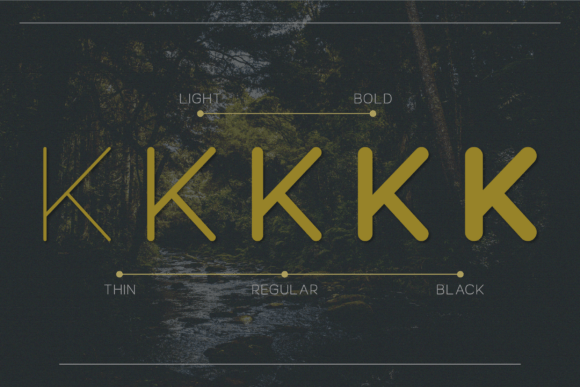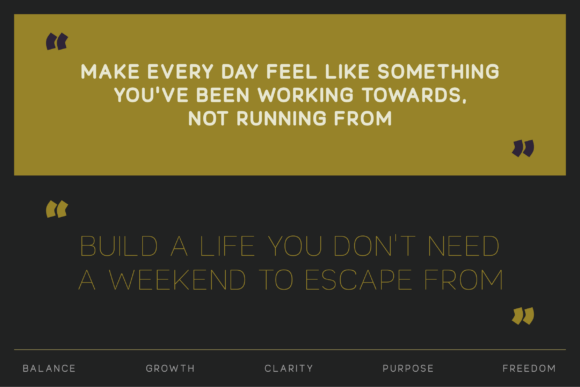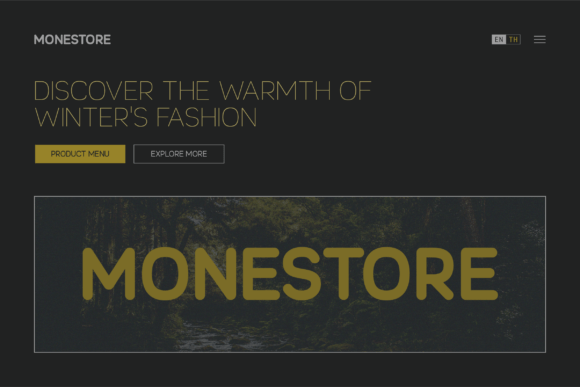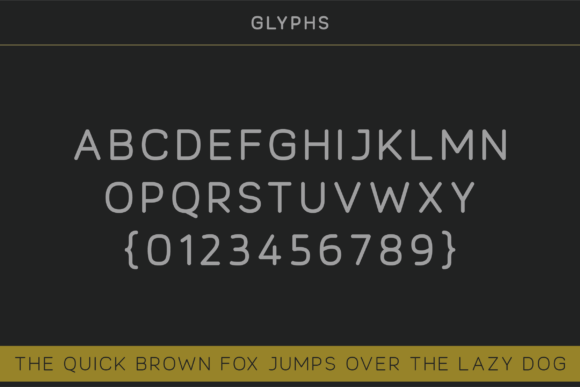
Introduction to Rhodachild Rounded Font
Remember that moment when you’re brainstorming ideas for your latest creative project, and you stumble upon the perfect font to bring your vision to life? It’s like the missing piece of a puzzle, and everything clicks into place. For designers, finding the right font can make all the difference between a good design and a great one. This is where the Rhodachild Rounded Font comes in – a modern all-caps sans serif font family that’s designed to bring clarity, warmth, and bold personality to your projects.
As a valuable design resource, Rhodachild Rounded Font offers a high-quality solution for designers, crafters, and brand creators looking to achieve a clean yet friendly visual identity. With its soft-rounded edges and sleek, geometric construction, this font is both highly legible and aesthetically balanced across five versatile weights. Whether you’re building a logo, packaging design, social media visuals, or high-impact headlines, Rhodachild Rounded adapts beautifully while adding a polished, confident touch.
Key Features of Rhodachild Rounded Font
- High-quality design resource suitable for various creative projects
- Features a unique rounded design style, perfect for modern and minimalist projects
- Perfect for use in logos, branding materials, and other design elements requiring a rounded aesthetic
Honest Review: Rhodachild Rounded Font
As a designer, I’m always on the lookout for high-quality design resources to enhance my creative projects. Recently, I stumbled upon the Rhodachild Rounded Font, and I must say it’s been a pleasant surprise.
Here’s what works well: ✨ The font’s rounded design gives it a friendly, approachable feel that’s perfect for branding and typography-based projects. The font family is quite extensive, with multiple weights and styles to choose from. I also appreciate the transparent background, which makes it easy to use in combination with other design elements.
- Extensive font family with multiple weights and styles
- Round design gives it a friendly, approachable feel
However, there are a few limitations: ⚠️ The font could benefit from more character sets, particularly in languages other than English. Additionally, the font’s rounded design can make it difficult to read in certain contexts, such as body text.
Overall, the Rhodachild Rounded Font is a solid design resource that’s perfect for branding and typography-based projects. While it’s not without its limitations, I appreciate its high-quality design and transparent background.
Getting the Most Out of Rhodachild Rounded Font
Common Use Cases for Rhodachild Rounded Font
Rhodachild Rounded Font is perfect for designing logos, business cards, and other marketing materials. It’s also great for creating social media graphics and presentations.